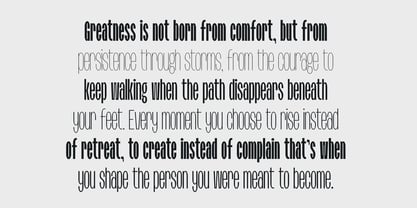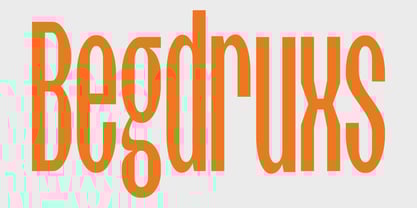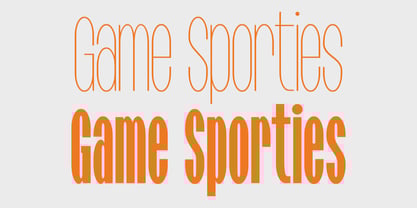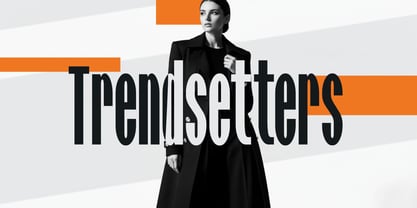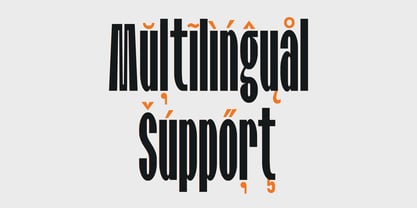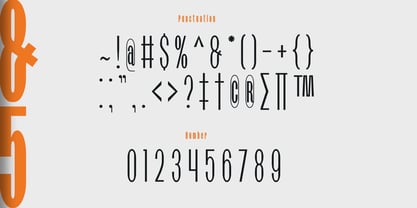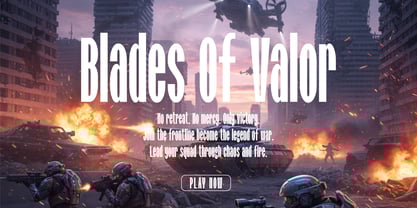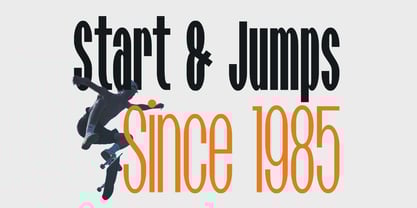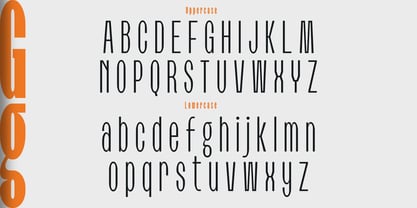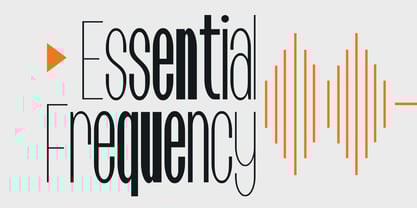
Begdruxs
by Sealoung
The Begdruxs Font Family was designed by Saiful Anwar and published by Sealoung. Begdruxs contains 5 styles and family package options.
Begdruxs Condensed Sans Serif is a versatile and contemporary typeface distinguished by its narrow and sleek letterforms. Designed for space efficient layouts, it delivers a clean, stylish, and highly readable appearance perfect for both modern branding and professional design projects. This font family includes 5 styles, ranging from Thin to Bold, providing excellent flexibility for diverse design applications.